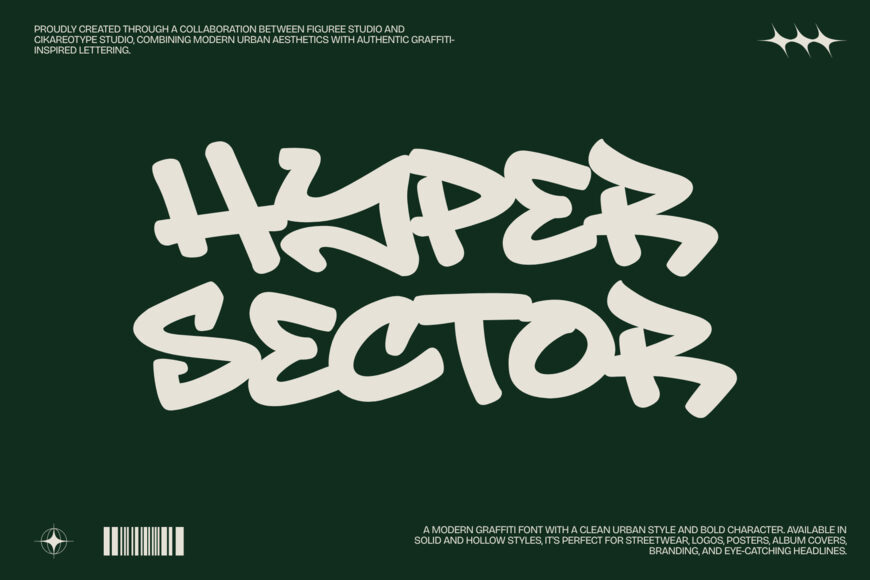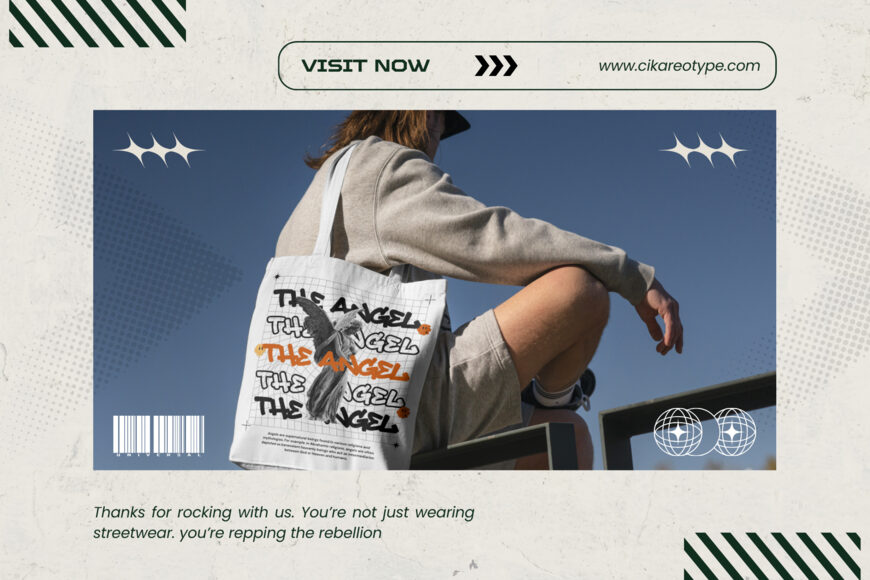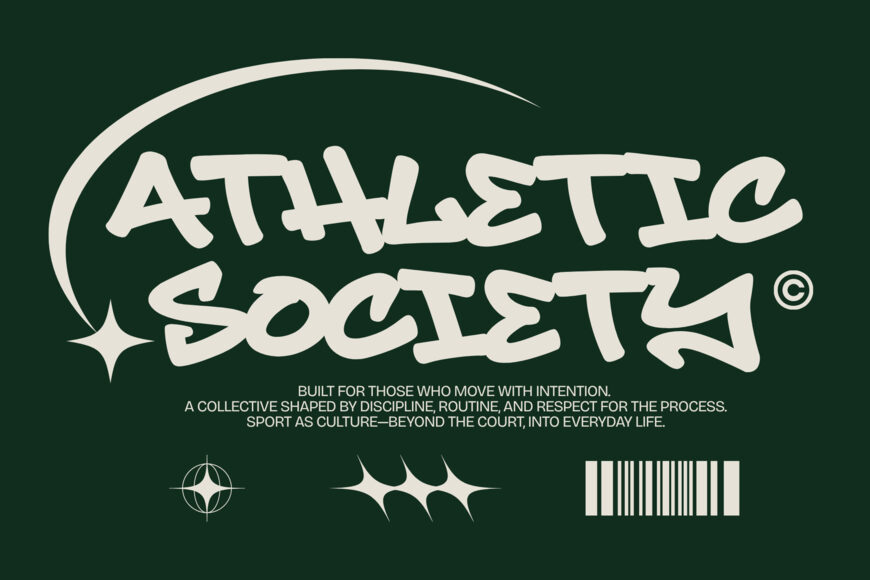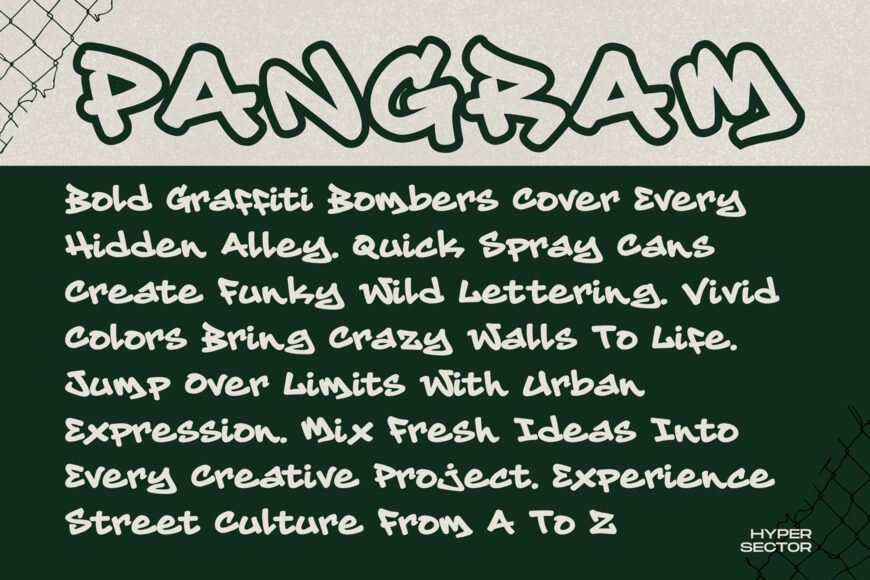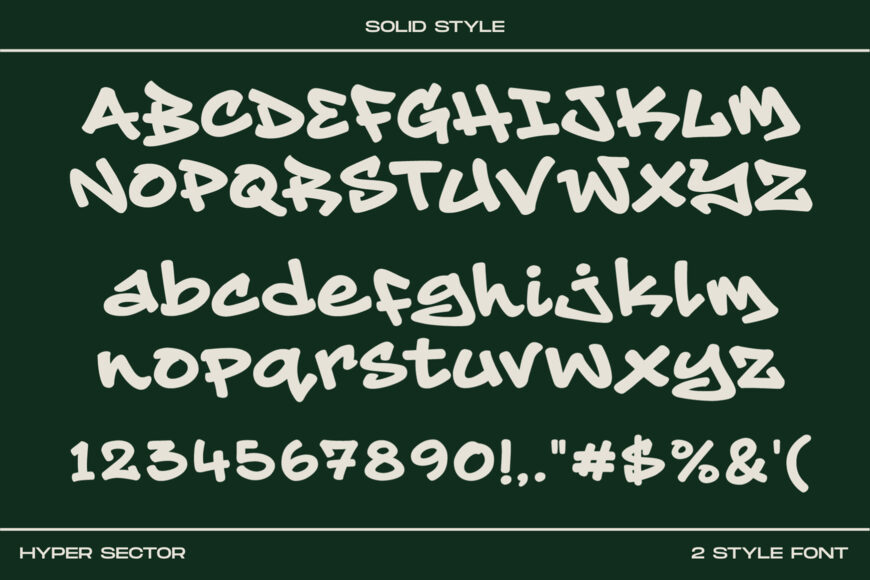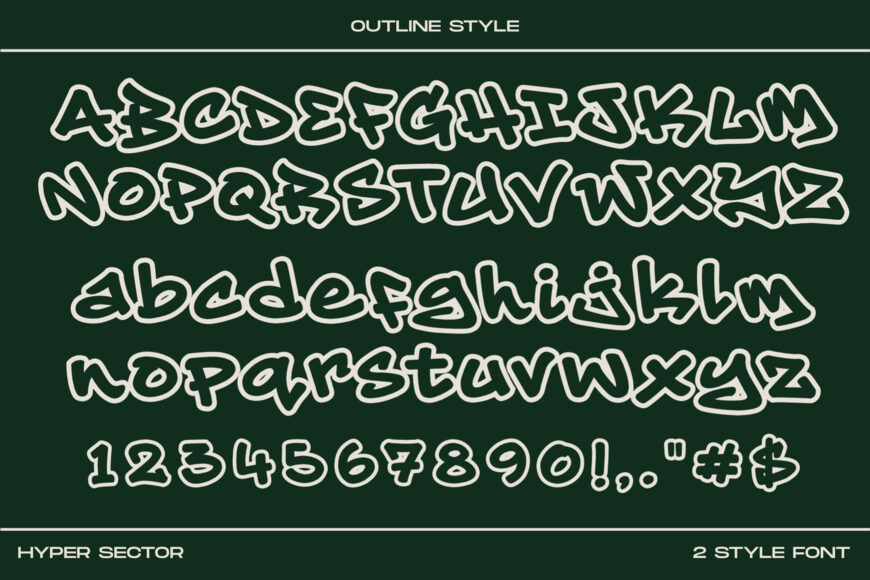
Hyper Sector Font
Hyper Sector is a bold and contemporary graffiti font designed for creators who want clean urban aesthetics with a modern twist. Combining solid lettering with a striking outline version, this modern graffiti font captures the energy of street culture while delivering the precision needed for professional branding and digital design.
Whether you’re creating logos, streetwear graphics, posters, album artwork, gaming visuals, or social media content, Hyper Sector graffiti font provides bold typography that instantly commands attention.